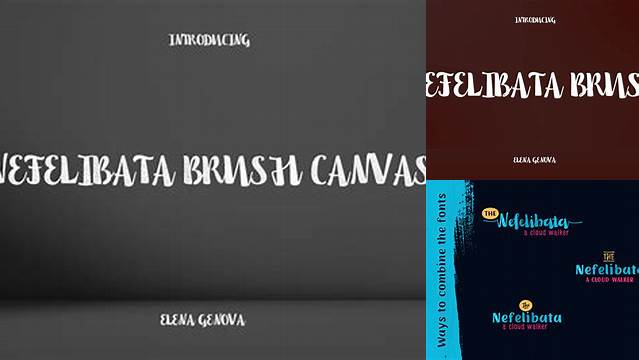
Nefelibata Font: Free Brush Canvas Download!
Hey guys! Are you looking for that perfect, hand-crafted touch for your next design project? Look no further! Today, we're diving deep into the world of the Nefelibata Brush Canvas Font, a super cool typeface that brings a raw, artistic feel to anything you create. Whether you're designing posters, websites, or even just doodling, this font can add that special something that makes your work stand out. And the best part? We're talking about how to get it for free! So, buckle up and let's explore everything you need to know about this fantastic font.
Nefelibata Font: What Makes It Special?
The Nefelibata Font is more than just a typeface; it's a statement. It embodies the spirit of freehand artistry, mimicking the natural strokes of a brush on canvas. This gives it a unique, organic feel that's hard to replicate with standard digital fonts. The imperfect edges and varying thicknesses of the strokes give each character a personality of its own. This font is perfect for projects that need a touch of authenticity, whether it’s a rustic-themed wedding invitation or a modern, edgy brand identity. You will see that the font truly shines when paired with high-quality imagery. Picture it splashed across a photograph of a windswept beach, or elegantly placed on a poster for a local art exhibit. The possibilities are endless, and the results are always captivating. Many designers appreciate its versatility, and the ability to capture emotion and translate it into the visual realm. You can pair it with a wide array of different graphic elements to see what fits your specific branding needs. The uniqueness of the font means that no two designs will ever look exactly alike, giving the brands that use it an unparalleled level of distinction.
Using Nefelibata Font in Your Designs
So, you've got the Nefelibata Font downloaded – now what? This font is incredibly versatile, but it shines best when used thoughtfully. Consider using it for headings, logos, or short bursts of text where its unique character can really stand out. Avoid using it for large blocks of body text, as its brush-like texture can become tiring to read. Experiment with different sizes, colors, and spacing to see what works best for your project. The Nefelibata Font also pairs well with simpler, sans-serif fonts for body text, creating a nice contrast that's both visually appealing and easy to read. Think about the overall mood you're trying to create and let the font enhance that. If you're designing something playful and whimsical, use bright colors and fun layouts. If you're going for something more sophisticated, stick to a more muted palette and clean lines. Remember, the key is to let the font's personality shine without overpowering the rest of your design. It can also be fun to use the font in combination with other fonts. In these situations, it can be advantageous to use the font in mockups to make sure that you are happy with it before going into production.
Nefelibata and Branding
When it comes to branding, the Nefelibata Font can be a game-changer. Its unique, hand-crafted feel can add a personal touch to your brand identity, making it feel more authentic and approachable. If you are trying to build a brand that resonates with people, then the font can definitely help. Using the right font for your branding projects can help to capture the right tone, and create the desired emotional resonance with your customers. Consider using it for your logo, website headers, or even your social media graphics. Just make sure it aligns with your overall brand message and target audience. A Nefelibata Font might be perfect for a creative agency or a small business with a focus on artisanal products, but it might not be the best fit for a corporate law firm. Think about the kind of impression you want to make and choose a font that reflects that. If you are unsure about what will work best, consider consulting with a graphic designer or branding expert. Branding experts will often provide you with some font options and suggest which fonts will be the most suitable for your business objectives.
Nefelibata Font for Web Design
Incorporating the Nefelibata Font into your web design can really make your site pop. Use it for headings to draw attention to key content, or in banners to create a visually appealing call to action. However, be mindful of loading times. Since it is a unique looking font, it may take time to load, especially if you have a lot of other media elements on the website. Before implementing it into your website, you should make sure to test the page loading speeds to make sure that it is up to par. Additionally, consider using web-optimized versions of the font to ensure smooth performance across different browsers and devices. You may need to purchase the right to embed the font on your web server. Before using a font in a commercial manner, it is always advised that you review the font's licensing agreement to ensure that you are compliant. Also, think about how the Nefelibata Font pairs with your website's overall design. Choose colors and layouts that complement its style, and make sure it's readable on different screen sizes. A well-designed website that incorporates this font can leave a lasting impression on your visitors.
Nefelibata Font and Print Projects
The Nefelibata Font isn't just for digital designs; it can also shine in print projects. Think about using it for posters, flyers, invitations, or even business cards. Its hand-drawn aesthetic adds a personal touch that can make your printed materials stand out from the crowd. When designing for print, make sure to use high-resolution versions of the font to avoid any pixelation or blurriness. Also, consider the paper stock you're using. A textured paper can enhance the font's brush-like quality, while a smooth paper can give it a more polished look. Experiment with different printing techniques, like letterpress or foil stamping, to really elevate your design. A carefully crafted print project that incorporates the Nefelibata Font can leave a lasting impression on your audience.
Nefelibata Font Inspiration
Need some inspiration on how to use the Nefelibata Font? Check out design blogs, social media platforms like Pinterest and Instagram, or online portfolios like Behance and Dribbble. Look for examples of how other designers have incorporated brush-style fonts into their work, and pay attention to the color palettes, layouts, and overall aesthetic. Don't be afraid to experiment and put your own spin on things. The key is to find a style that resonates with you and your brand. A little bit of inspiration can go a long way in helping you create stunning designs with the Nefelibata Font.
Nefelibata Font: Final Thoughts
So, there you have it! The Nefelibata Brush Canvas Font is a fantastic tool for adding a unique, hand-crafted touch to your design projects. Whether you're a seasoned designer or just starting out, this font can help you create stunning visuals that stand out from the crowd. Just remember to download it from a reputable source, understand the licensing terms, and use it thoughtfully in your designs. Happy creating, guys!